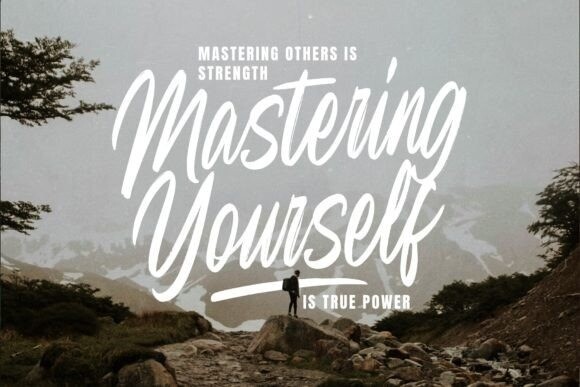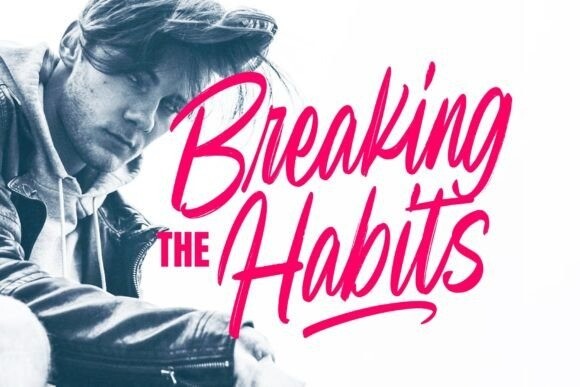
Moving Sunday Font
Moving Sunday Font, a wonderfully lively handbrush handwritten font that mirrors the free-spirited essence of easy relaxed days. Its naturally etched strokes and enthusiastically shaped letters introduce an unearthly organic feel to your projects, all wrapped up in warmth and affection.
Perfectly suited for all – from designing striking posters, bespoke apparel or captivating social media graphics, Moving Sunday dutifully imparts a delightful degree of character and personality. This font invites you to savor the allure of imperfection, celebrating the raw beauty handmade creations embody. The letters give off an impression of effortless brush strokes, detailing the spur of a moment vibe.